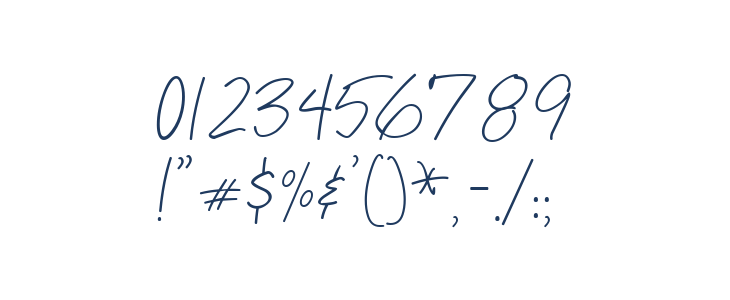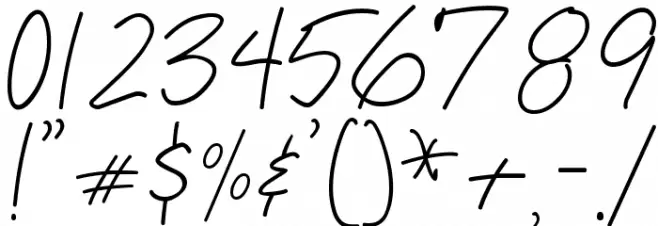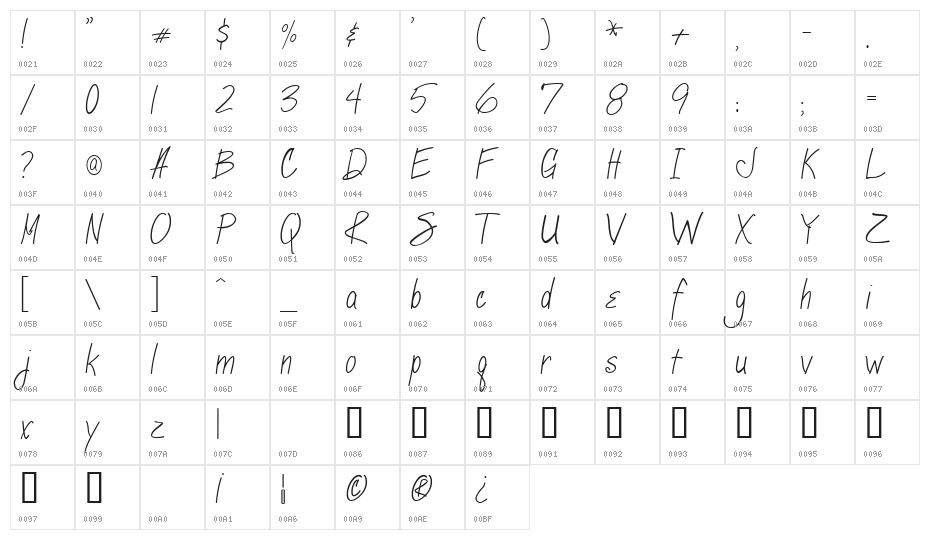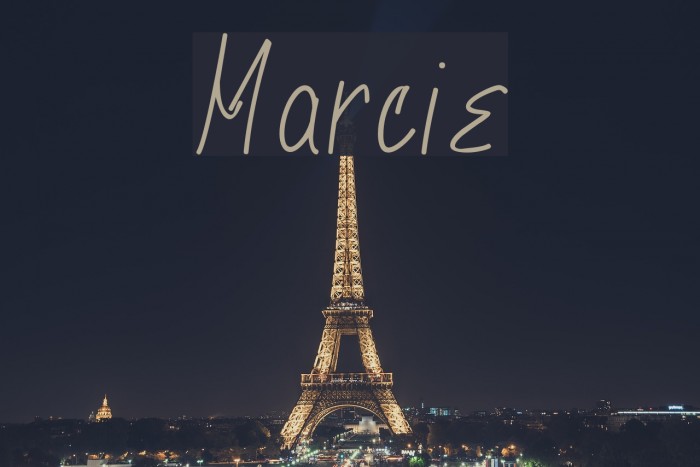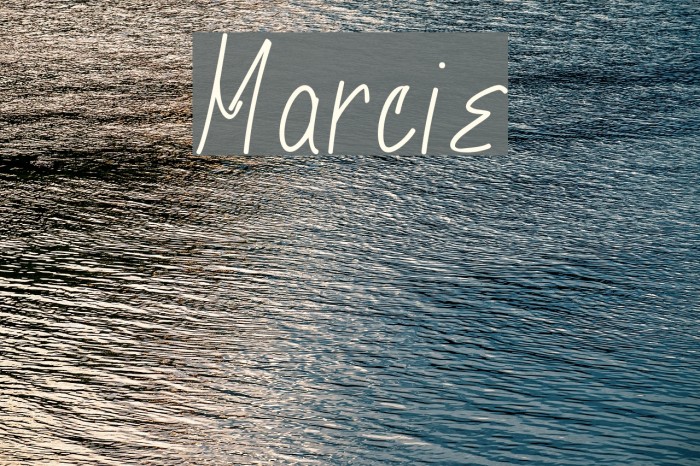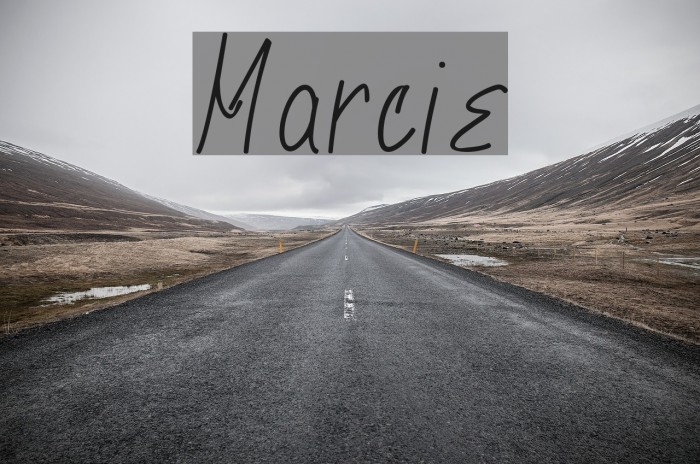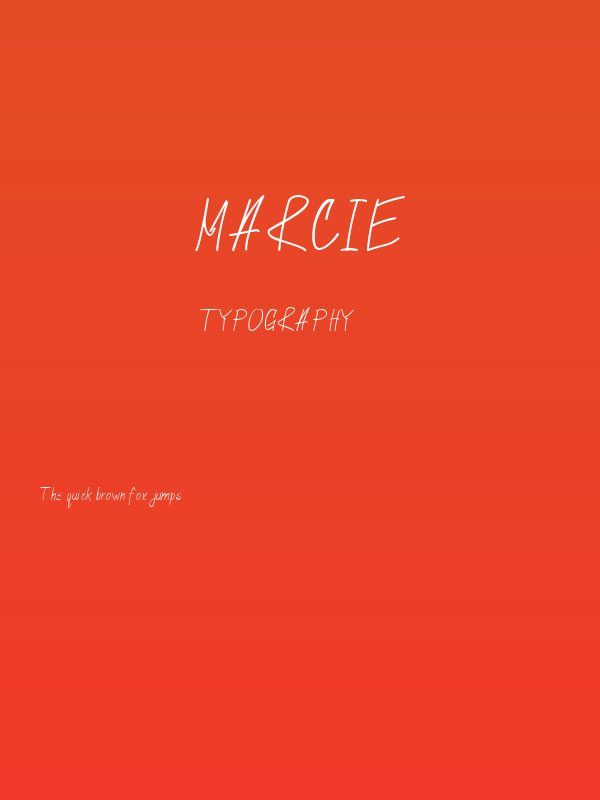
Marcie Font
Marcie Description
This font features a handwritten style with a casual and flowing appearance. The letters are slightly slanted, giving it a dynamic and lively feel. The strokes are smooth and consistent, with a medium thickness that maintains readability while adding a personal touch. The uppercase letters are tall and slender, while the lowercase letters are more rounded and compact. Numbers and special characters follow the same handwritten aesthetic, making the font versatile for various uses. The overall look is informal yet stylish, suitable for projects that require a personal or creative touch.
| Overall Style | Casual, Creative |
| Use Case | Logos, Invitations, Social Media Posts |
| Proposed Projects | Ideal for greeting cards, personal branding, social media graphics, and creative projects that require a personal touch. |